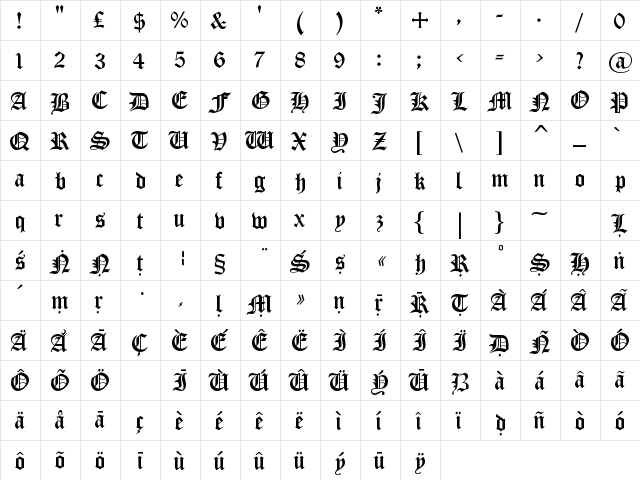
Skt Medieval Regular
| Designer | Diacritical marks added by Bhikkhu Pesala. |
Design Context for Skt Medieval Typeface
Skt Medieval is a composed and adaptable typeface that performs quietly and consistently across a wide range of design contexts.